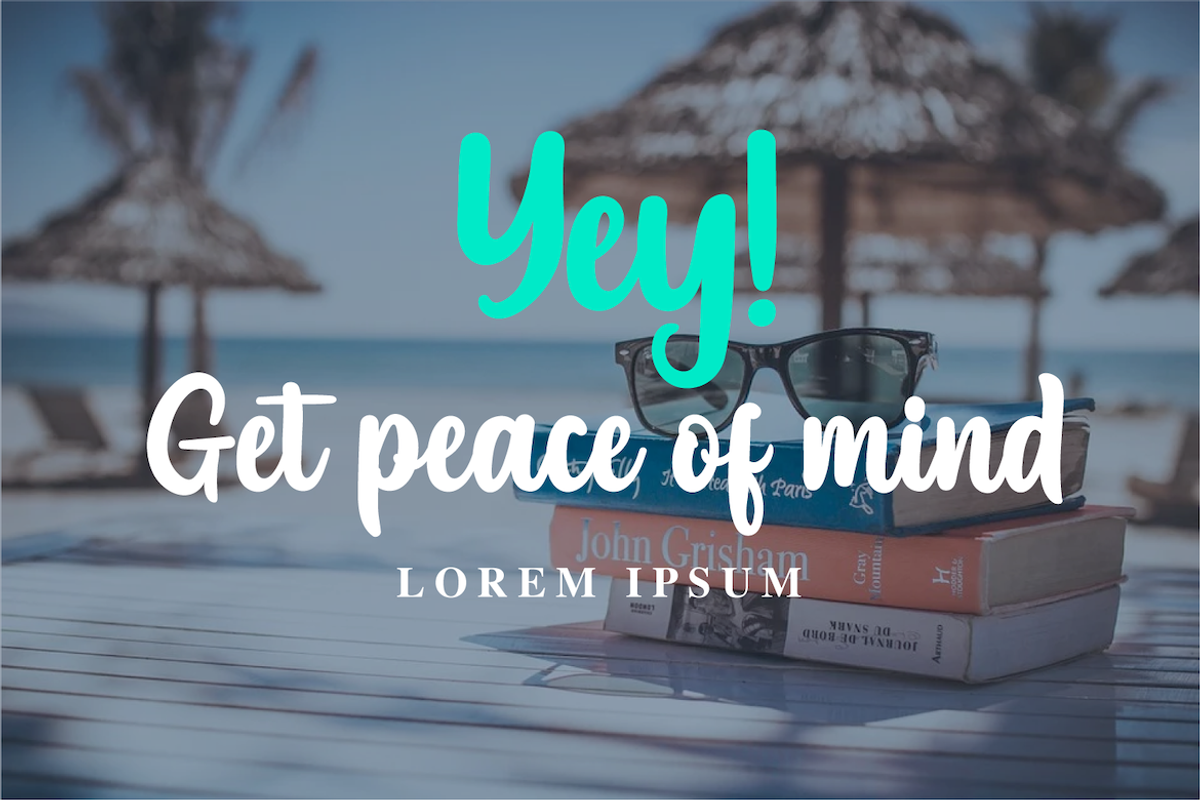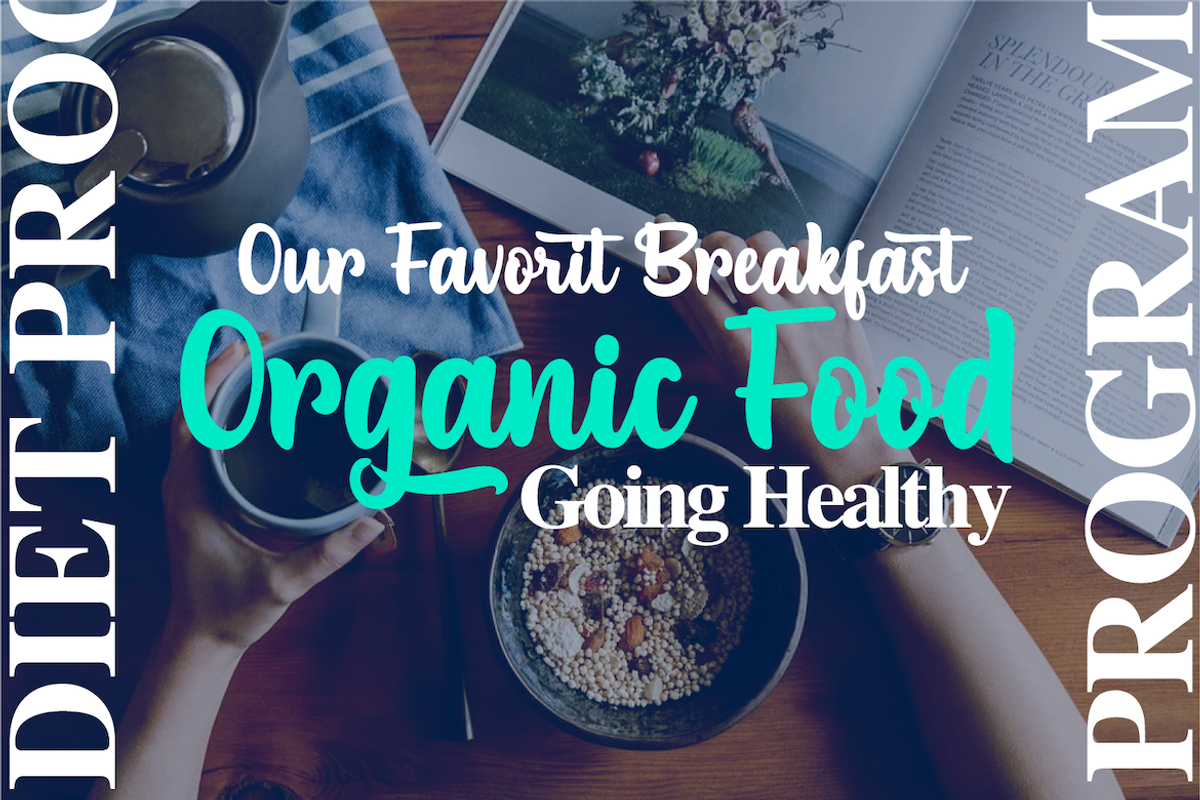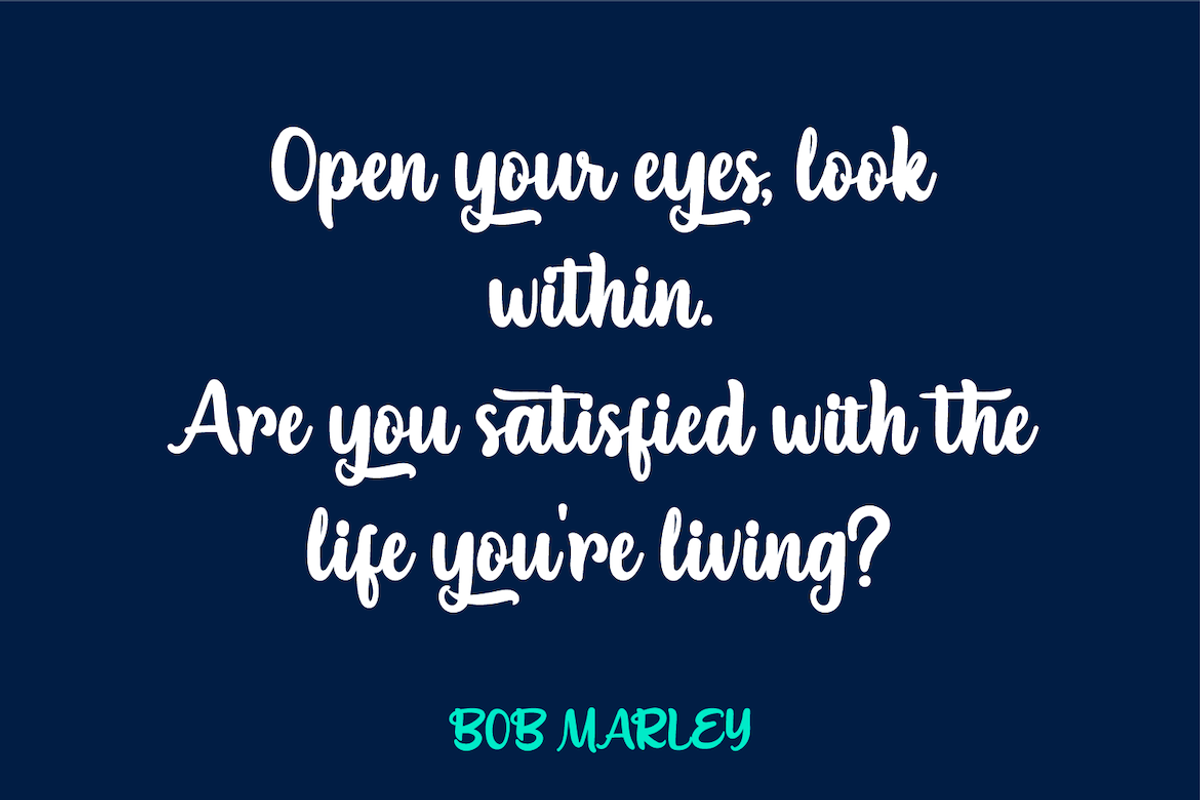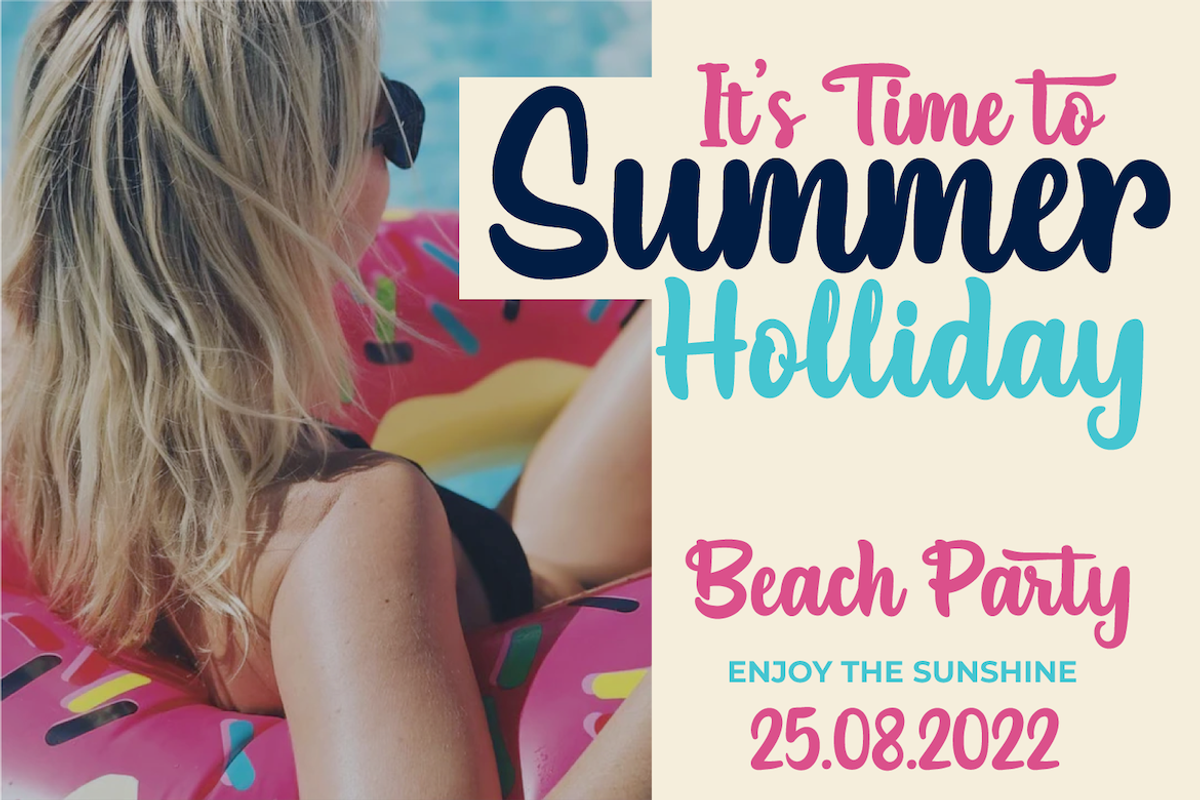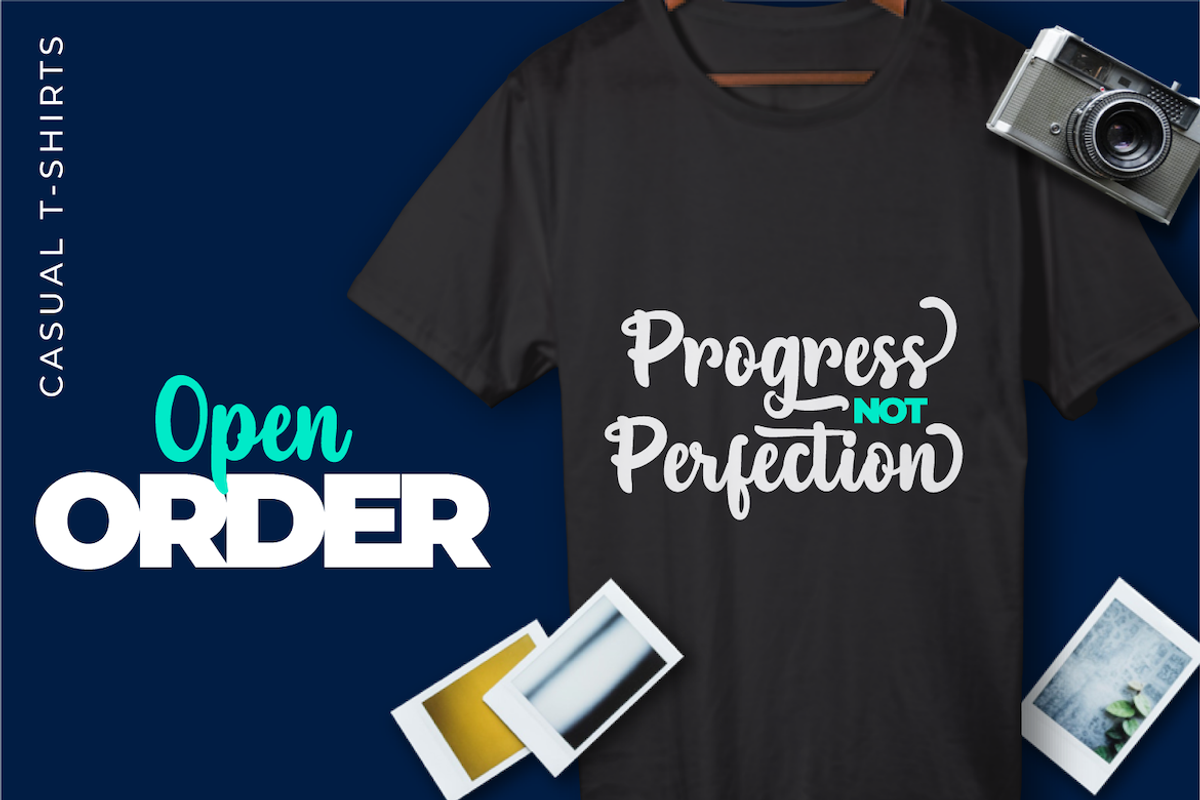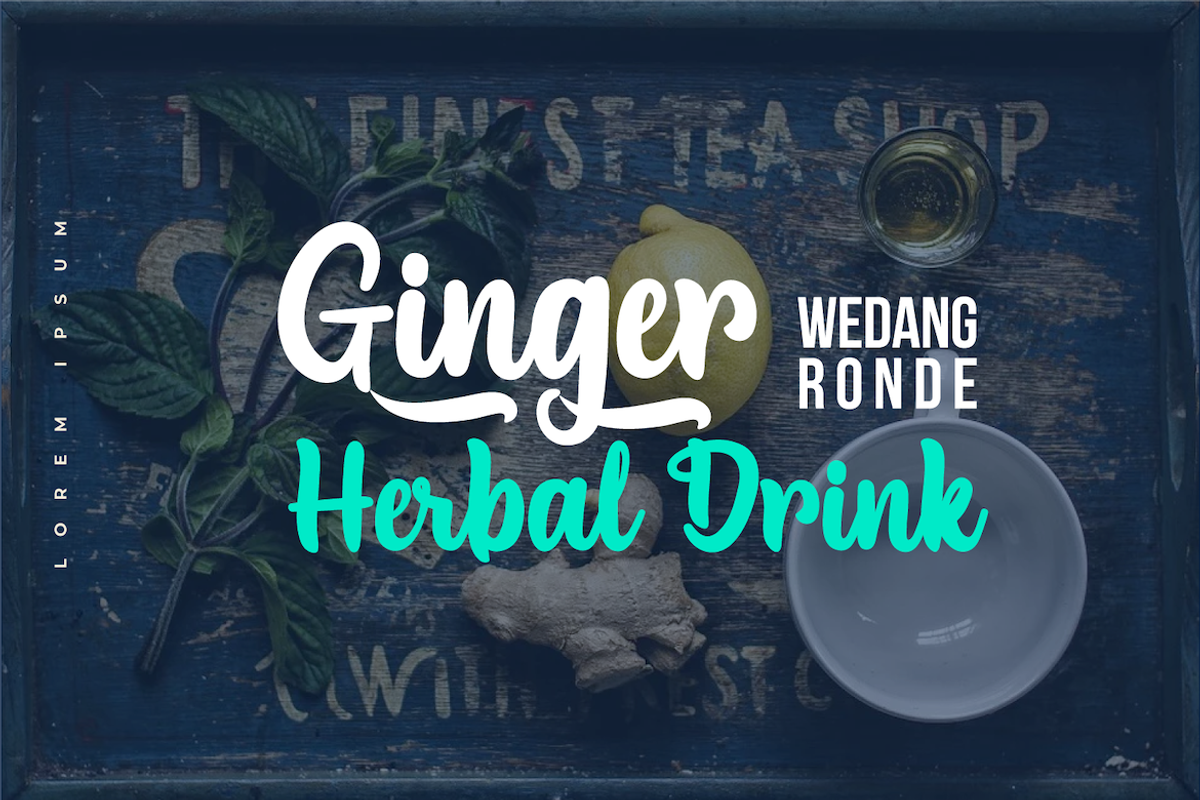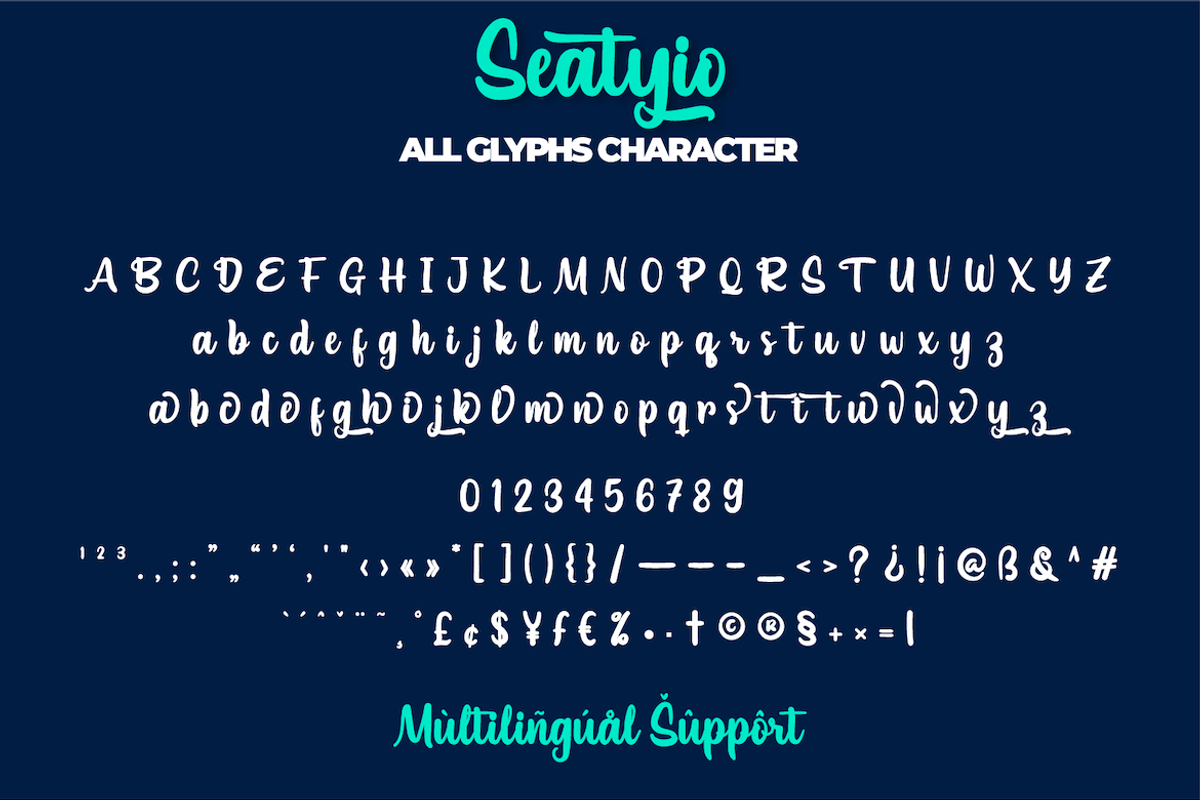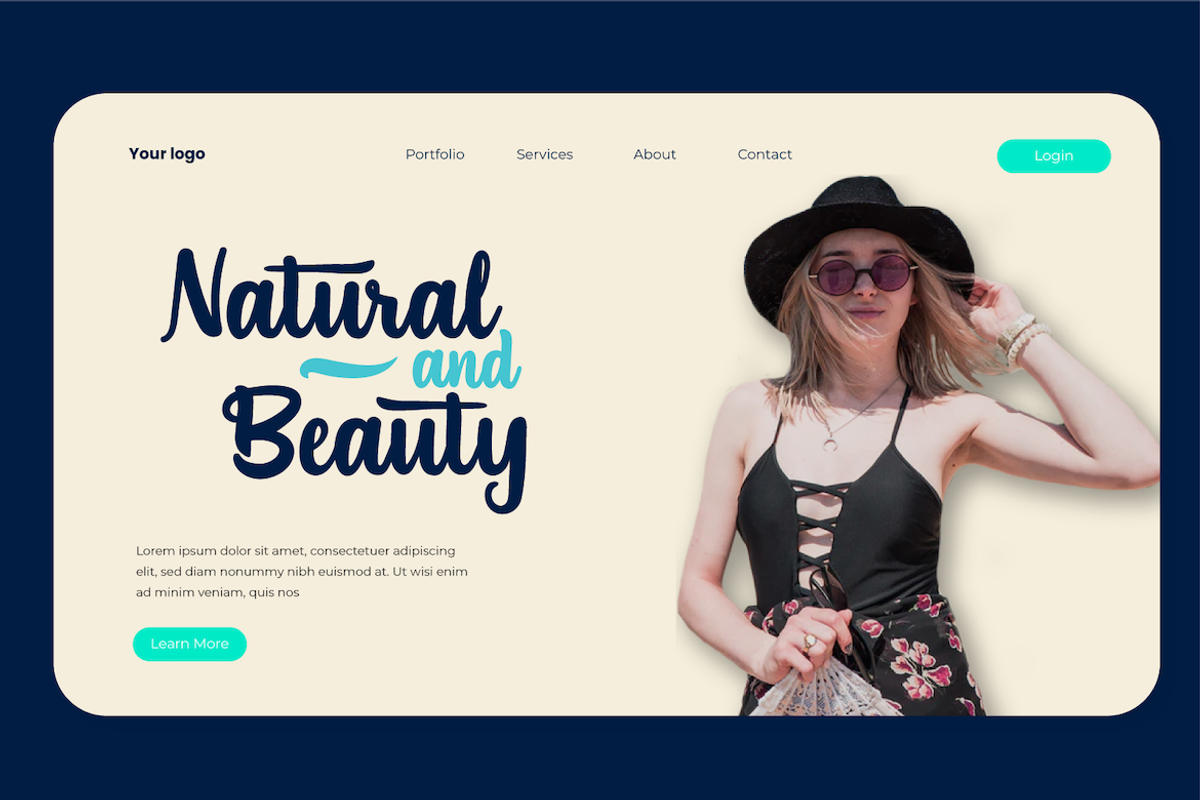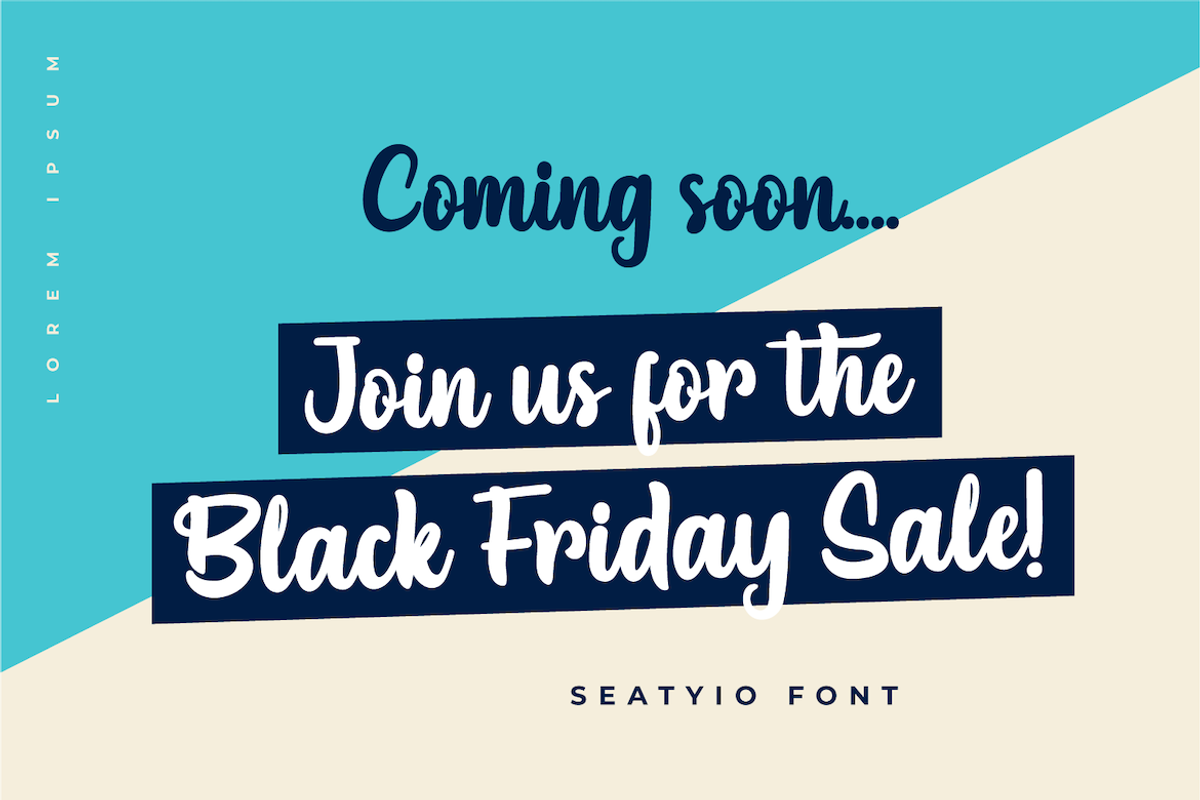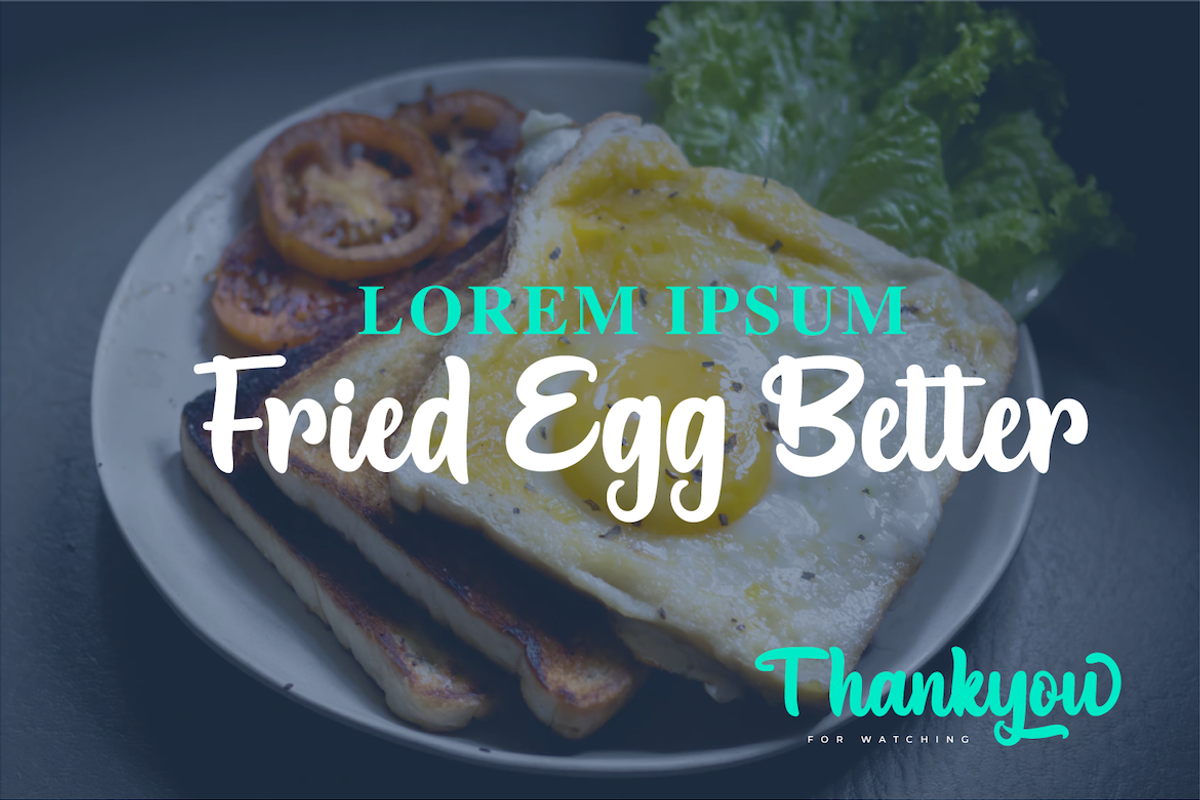
Seatyio
Introducing our new Font named Seatyio
This font is designed with a script model that is suitable for writing for outdoor and indoor events, such as traveling or for the title of any particular event. and to be sure this font is not only limited to that purpose but also very special for every need of your project, be it a formal or non-formal project, this font is still beautiful and elegant.
This charming font also offers the beauty of abstract typography harmony for a wide variety of design projects, including digital natural handwriting for designs, quote designs, for social media business designs, advertisements, trademarks, food and beverage promotion banners, text, posters, a signature, and all designs require handwriting or whatever design you want.